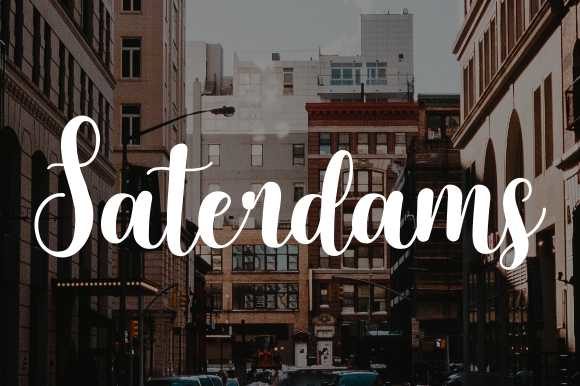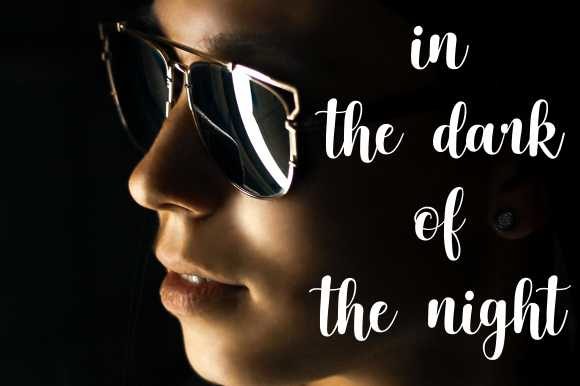
Saterdams Font
About Saterdams Font
The Saterdams is an original hand brushed typeface. It has a striking style which is perfect for invitations, labels, menus, logos, wedding cards, labels, magazines, and much more!